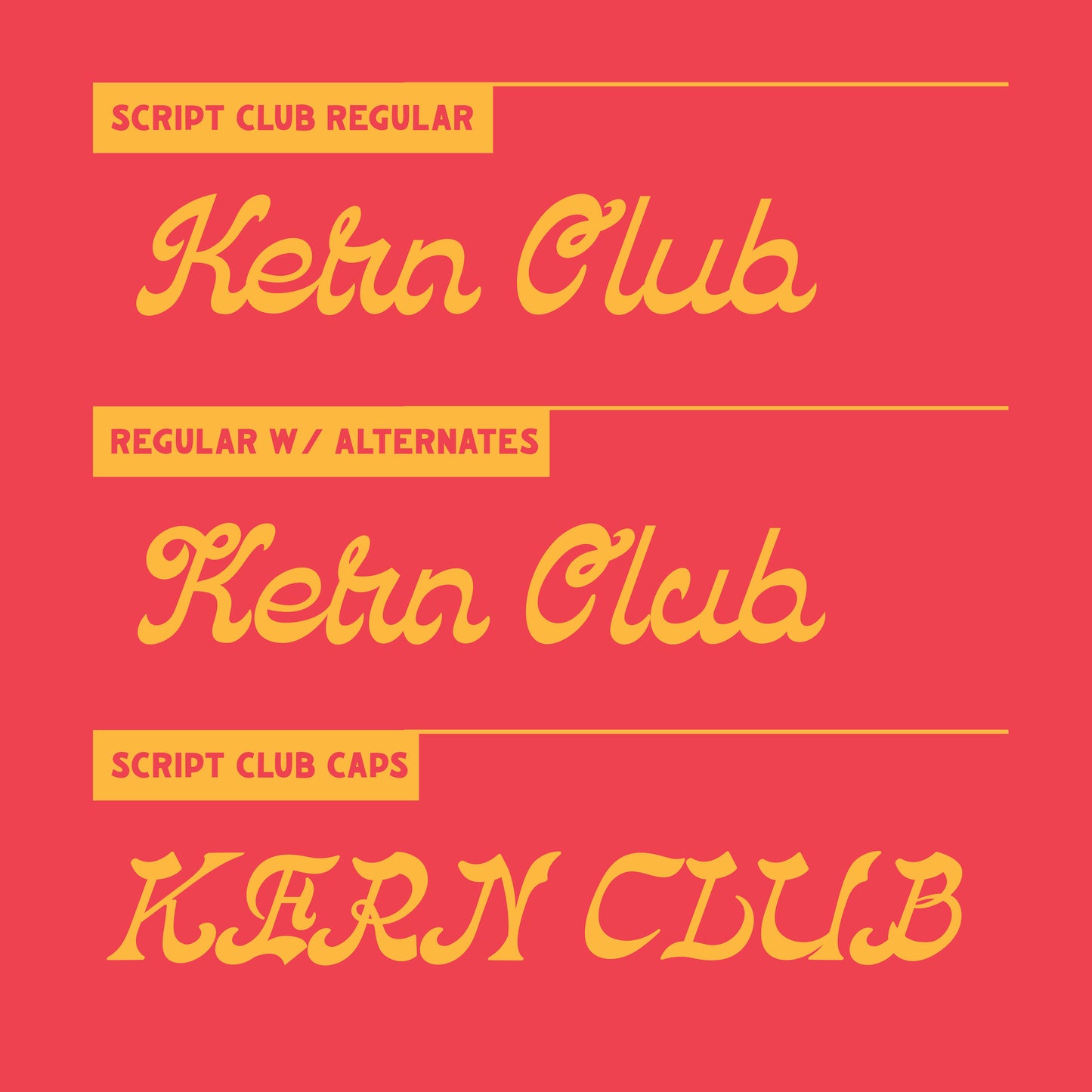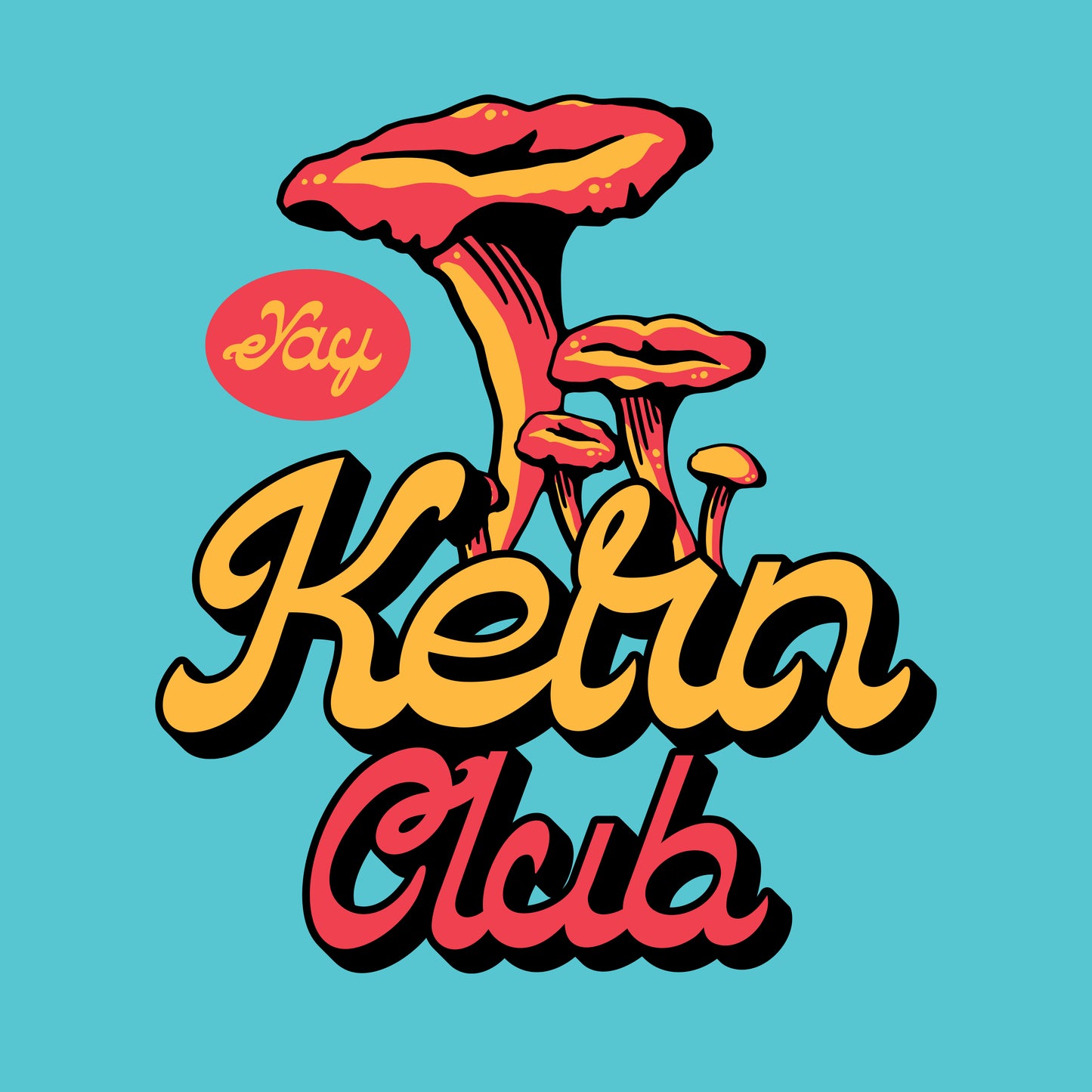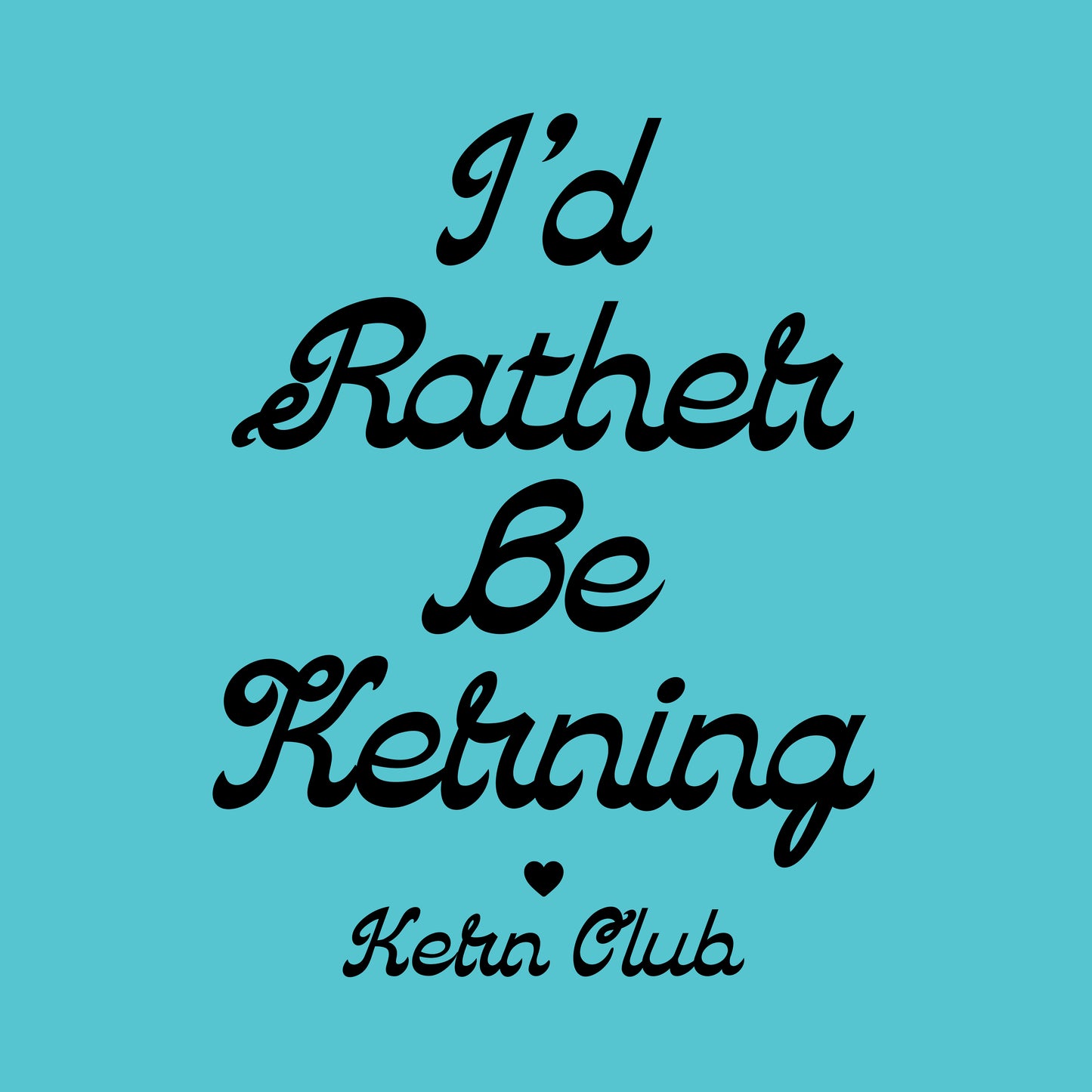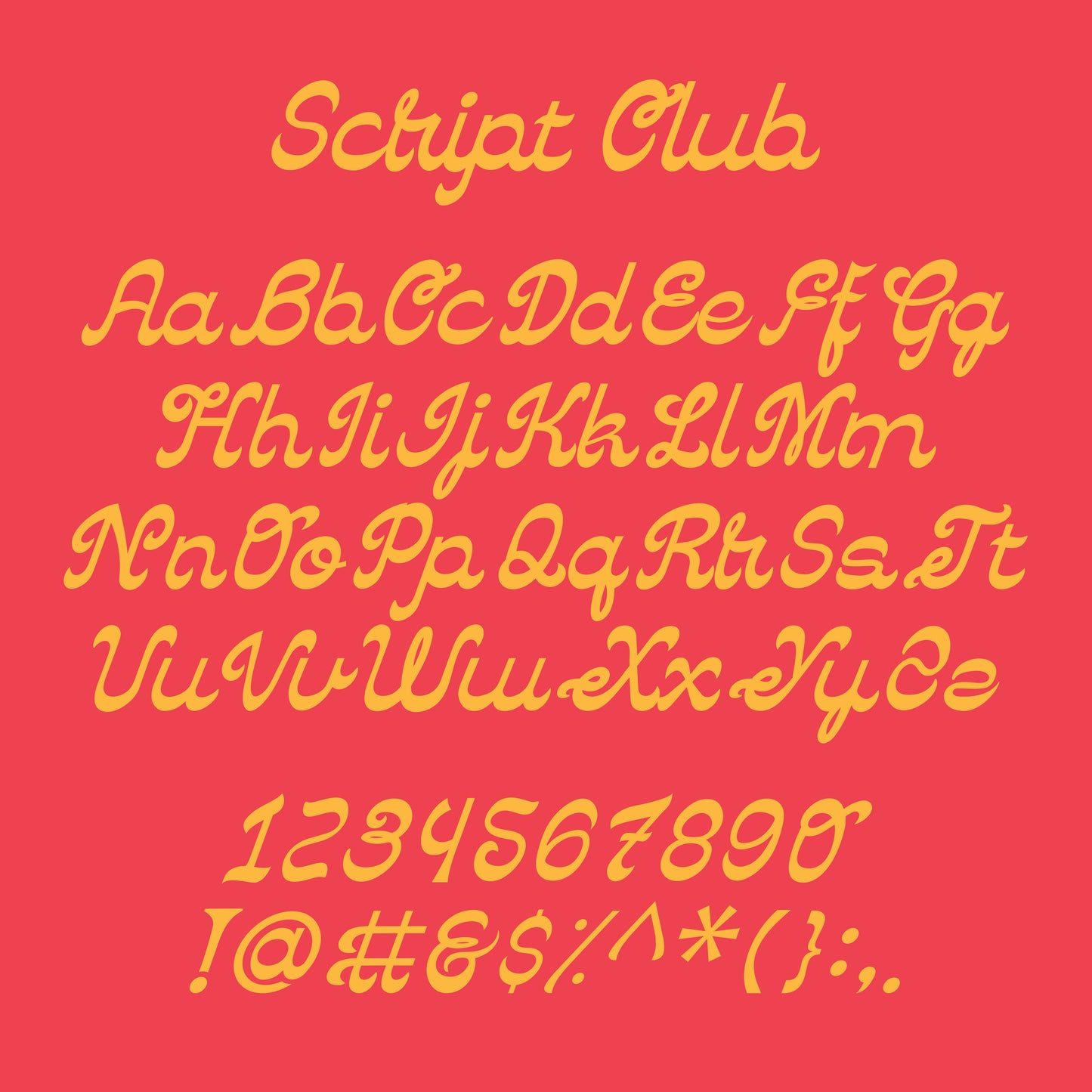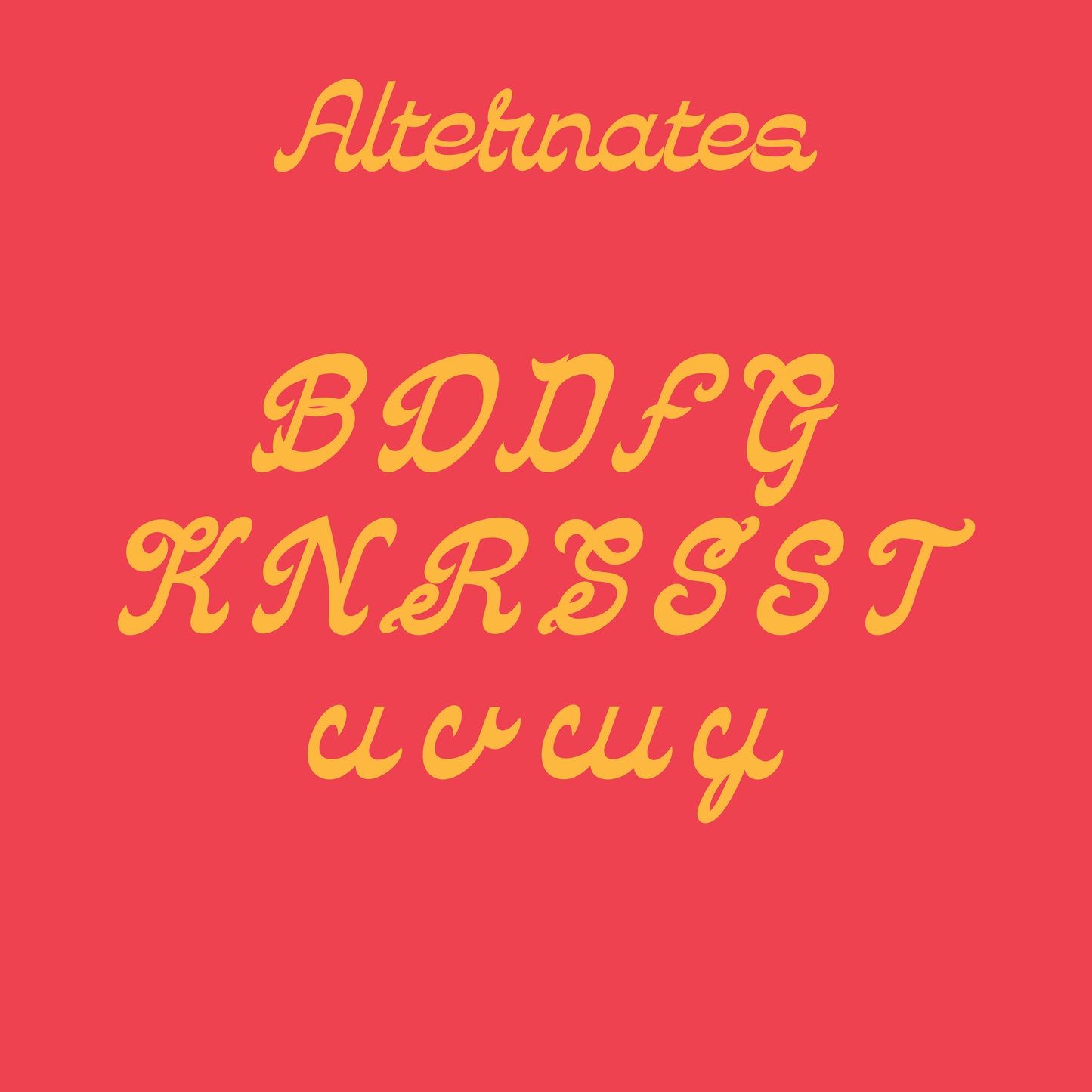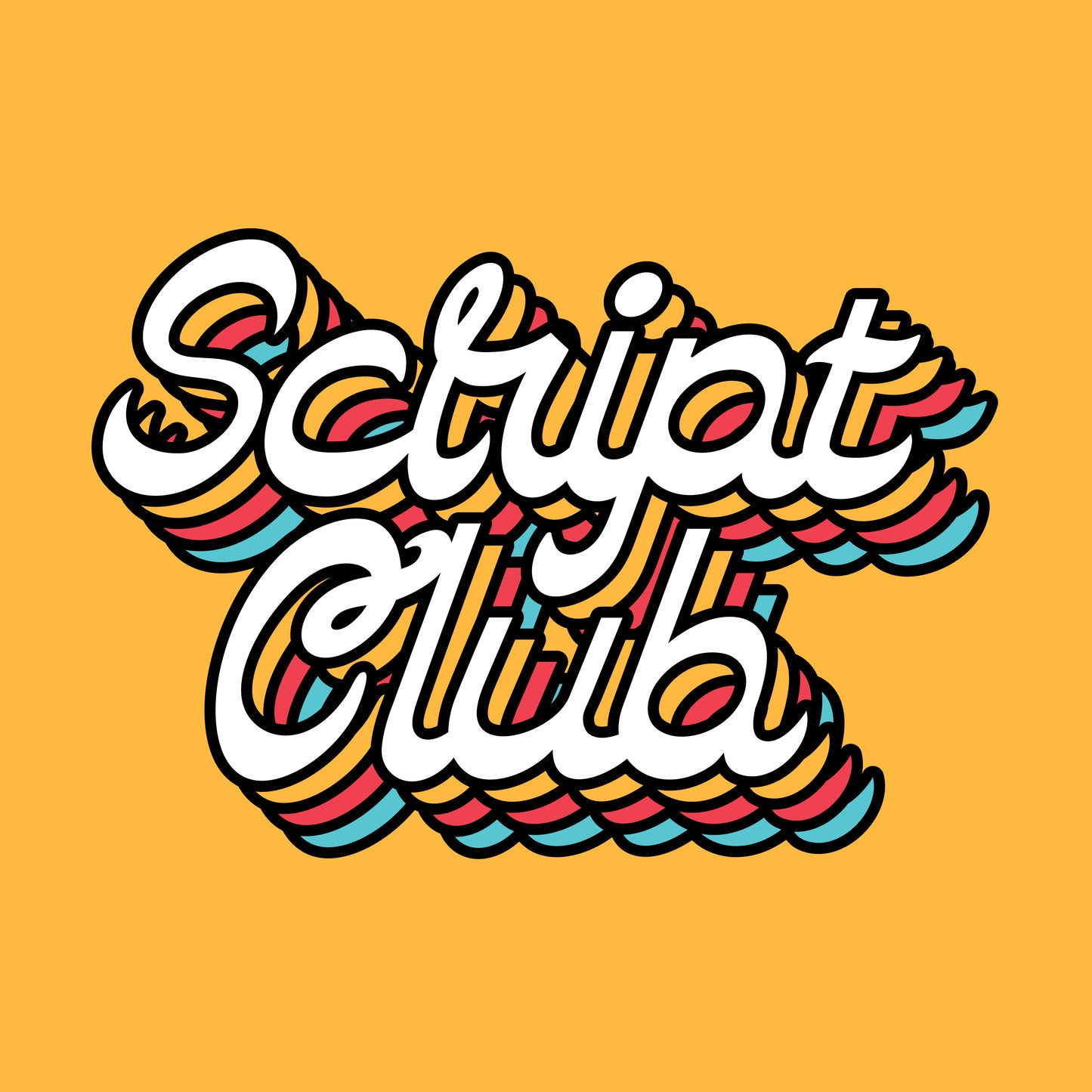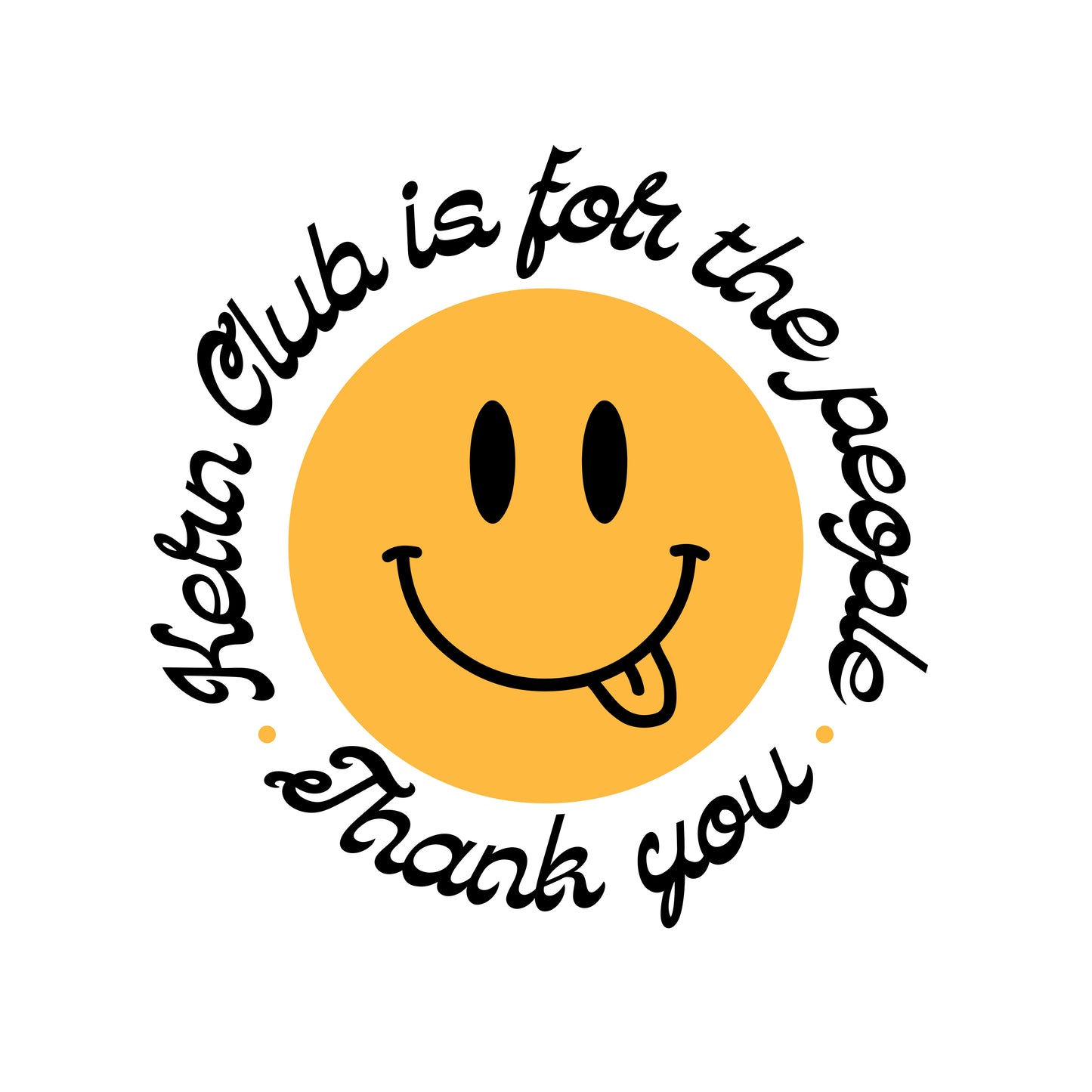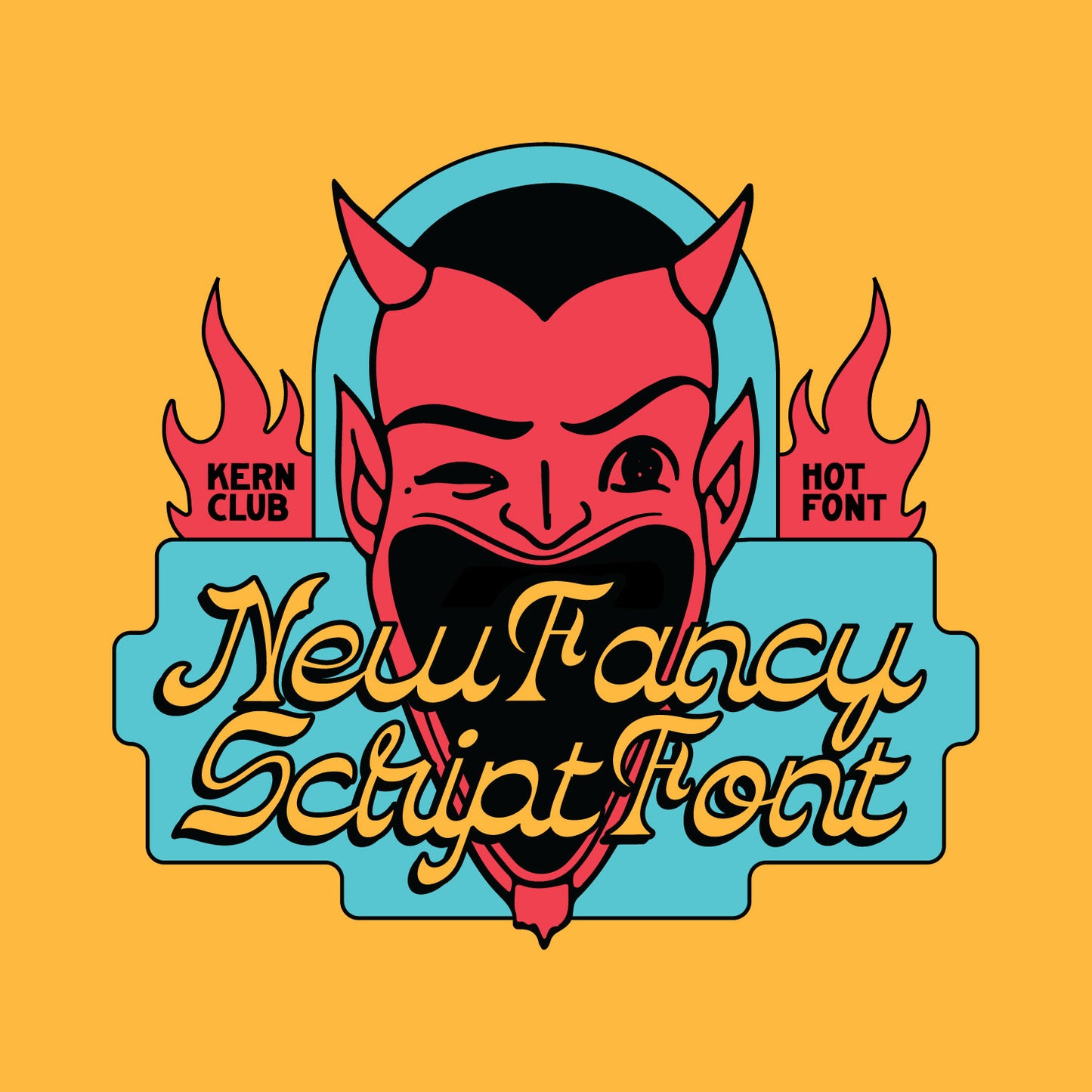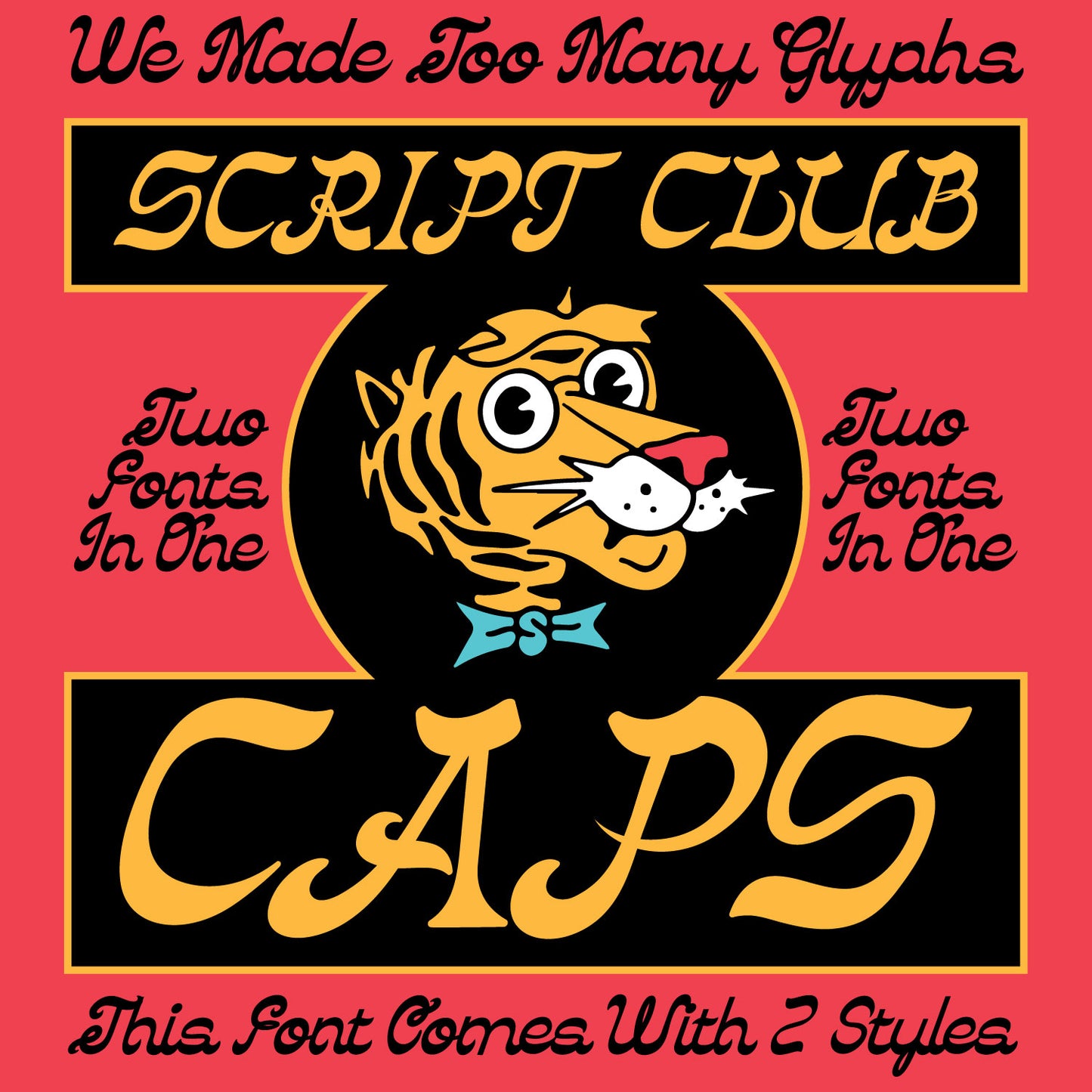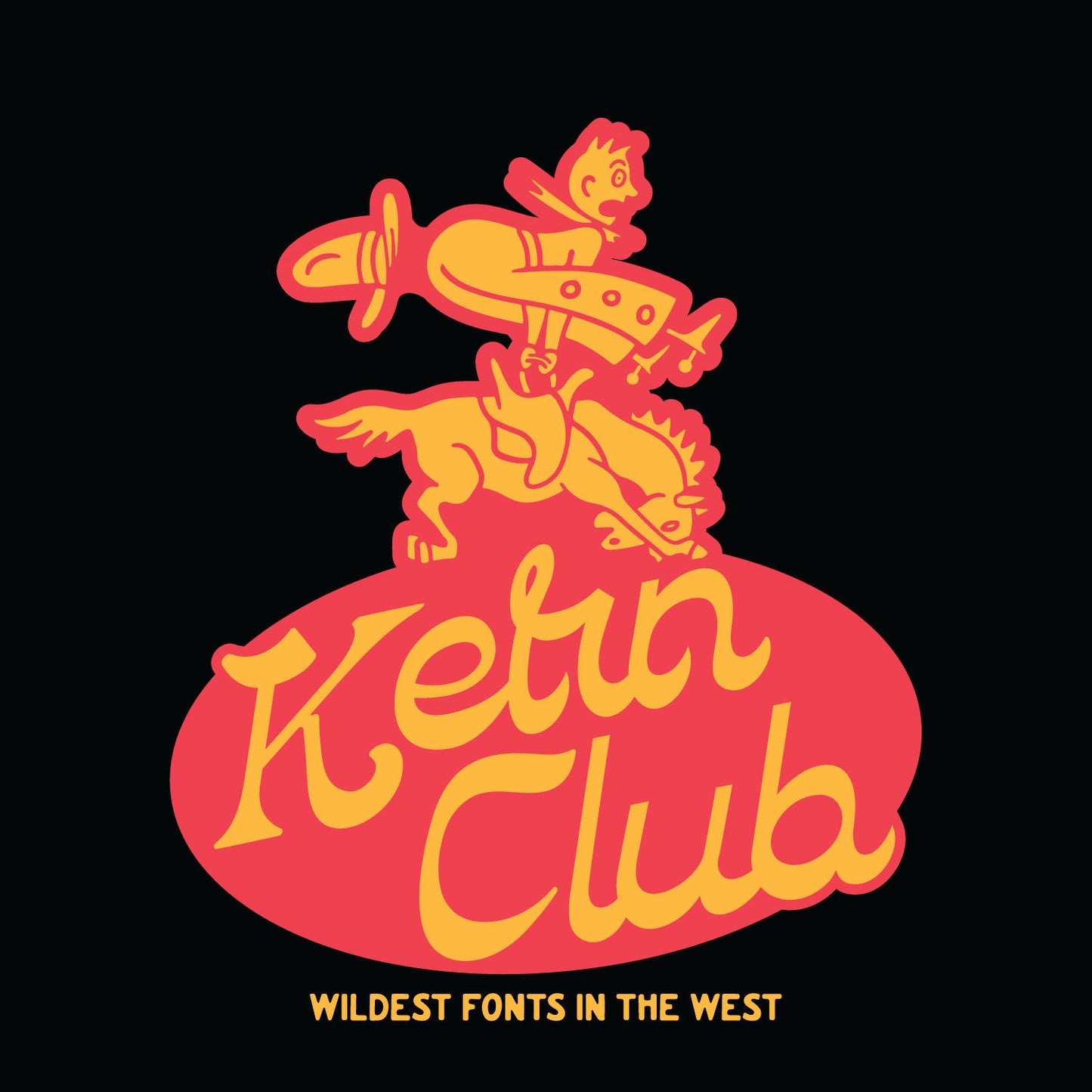
Script Club Font
Nostalgia script font designed by Samborghini
- Lowercase Character Set a-z
- Includes regular, & caps version (2 fonts)
- Tons of alternate characters